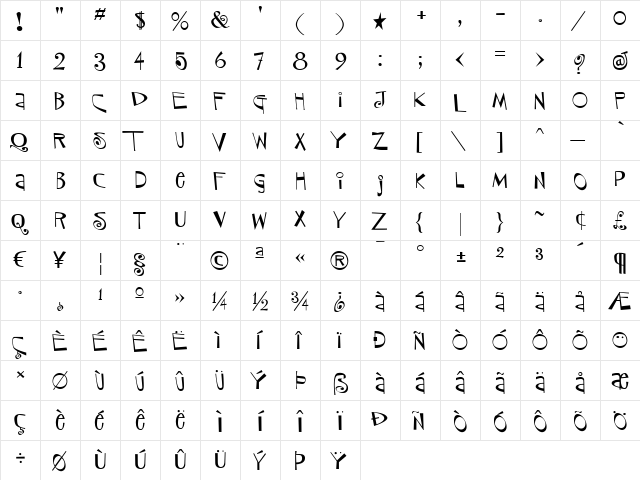
P22 Sniplash Regular
| Foundry | P22 / International House of Fonts |
| Designer | Terry Wߤenbachs |
Design Context for P22 Sniplash Typeface
P22 Sniplash is a composed and adaptable typeface that performs quietly and consistently across a wide range of design contexts.